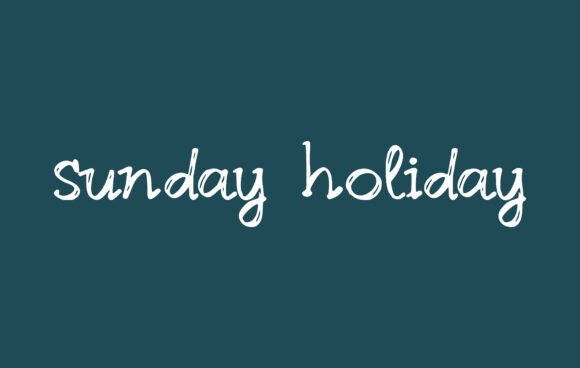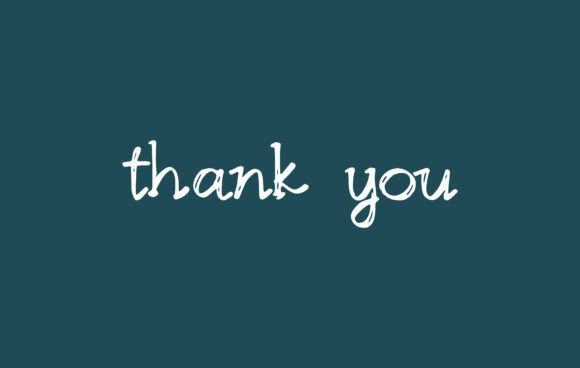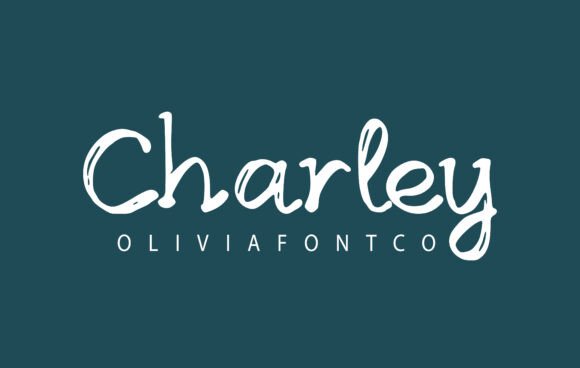
Introducing Charley Font: The Ultimate Handwritten Font for Creative Expression
Are you tired of using the same old fonts for your creative projects? Look no further than Charley Font, an authentic handwritten font with a romantic touch that’s sure to take your designs to the next level. Expertly crafted to be a true favorite among designers and crafters, Charley Font is the perfect choice for anyone looking to add a personal touch to their work.
The Characteristics of Charley Font
So, what makes Charley Font so special? For starters, its handwritten design gives it a unique and organic feel that’s perfect for creating a sense of warmth and connection with your audience. The font’s romantic touch adds a touch of elegance and sophistication, making it ideal for designs that require a bit of whimsy and flair.
But Charley Font isn’t just beautiful – it’s also incredibly versatile. With its clear and legible design, it can be used as both a title font and a body text font, making it perfect for a wide range of applications. Whether you’re designing a magazine headline, a social media post, or a wedding invitation, Charley Font is sure to make your text stand out.
Uses for Charley Font
So, what can you use Charley Font for? The possibilities are endless! Here are just a few ideas to get you started:
• Magazine Headlines: Add a touch of elegance and sophistication to your magazine headlines with Charley Font. Its romantic touch and clear design make it perfect for creating eye-catching titles that draw readers in.
• Social Media: Stand out on social media with Charley Font. Its unique and organic design makes it perfect for creating engaging posts that get noticed.
• Branding: Use Charley Font to create a consistent brand identity that sets you apart from the competition. Its elegant design and romantic touch make it perfect for creating a sophisticated and memorable brand image.
• Wedding Invitations: Make your wedding invitations truly special with Charley Font. Its romantic touch and elegant design make it perfect for creating beautiful and memorable invitations that set the tone for your big day.
• Cards: Add a personal touch to your cards with Charley Font. Its clear and legible design makes it perfect for creating beautiful and heartfelt cards for any occasion.
Why Choose Charley Font?
So, why should you choose Charley Font for your next project? Here are just a few reasons:
• Unique Design: Charley Font has a unique and organic design that’s sure to make your text stand out.
• Romantic Touch: Add a touch of elegance and sophistication to your designs with Charley Font’s romantic touch.
• Versatility: Charley Font is incredibly versatile, making it perfect for a wide range of applications.
• Legibility: Charley Font is clear and legible, making it perfect for use as both a title font and a body text font.